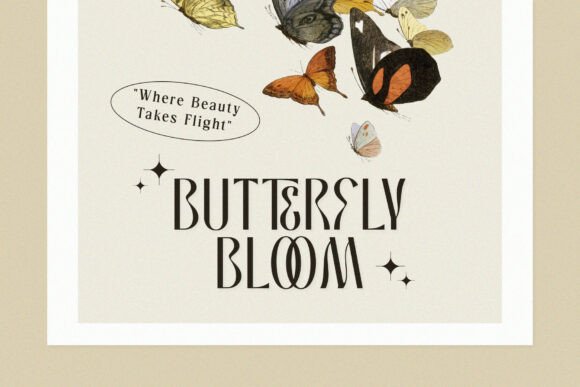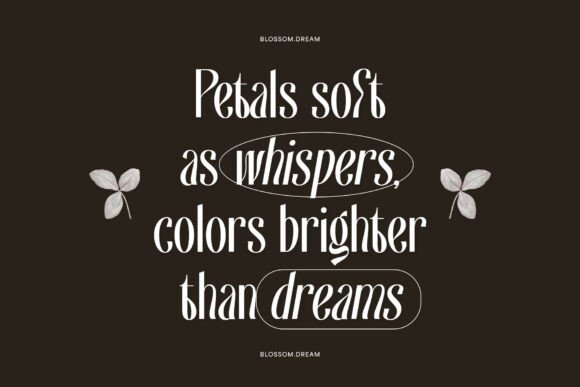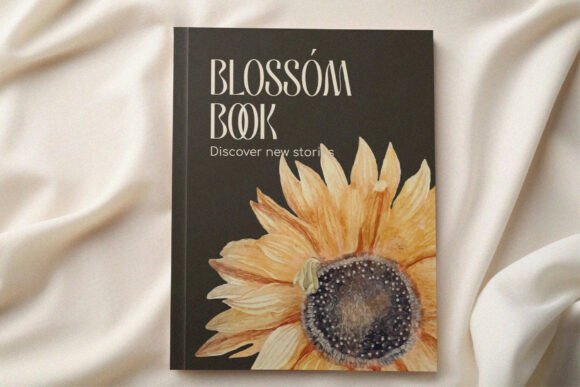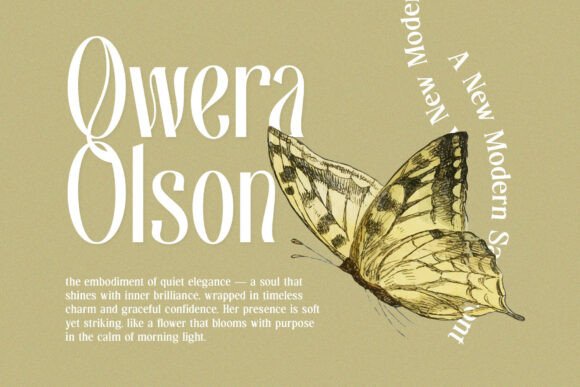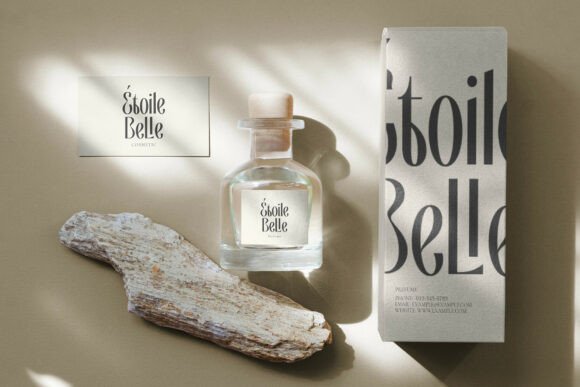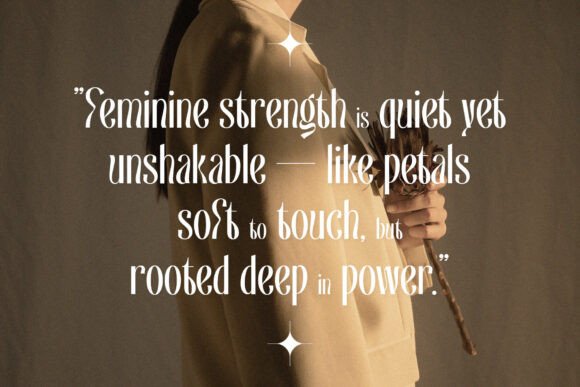
Redefining Luxury with the Perfect Font
Have you ever stared at a blank page, searching for the perfect font to convey your brand’s essence? It’s that moment when creativity strikes, and the possibilities seem endless. For designers, finding the ideal font can be a daunting task, but what if you stumbled upon one that effortlessly exudes luxury and sophistication?
Enter the Brylliant Font, a modern sans-serif that reimagines classic elegance through a contemporary lens. This versatile font is designed to elevate any layout, from high-fashion branding to boutique product packaging, with its high-contrast strokes and fluid, organic terminals. Its unique “swelled” stems and lyrical rhythm provide a sophisticated, boutique-style presence that’s sure to leave a lasting impression.
For designers seeking to add a touch of luxury to their designs, the Brylliant Font is an invaluable asset. Its professional, high-fashion feel makes it perfect for creating memorable brand identities and editorial designs that truly stand out.
Brylliant Font Key Features
- Font Family: Brylliant Font offers 4 unique font families, each with a distinct style and flair.
- Size: The font family includes a range of weights from Light to Bold, with 8 different font weights in total.
- Unique Characteristics: The font features a unique blend of geometric and organic elements, resulting in a visually striking and modern design.
Brylliant Font Review
Overall, I have mixed feelings about the Brylliant Font. There are some aspects where it truly shines ✨, but it also has some limitations that make it hard to recommend.
- ✨ Elegant and modern design: The Brylliant Font has a sleek and sophisticated look that makes it perfect for luxury brands and high-end designs.
- ✨ Versatile: It comes in multiple weights and styles, making it easy to use in various contexts, from headings to body text.
- ✨ Great for digital use: The font is optimized for screens, ensuring that it looks crisp and clear on both desktop and mobile devices.
- ⚠️ Limited character set: The font only includes the Latin alphabet, making it less suitable for designs that require non-Latin characters.
- ⚠️ Not ideal for small text: The font’s elegance and sophistication can make it difficult to read at small font sizes.
Overall, the Brylliant Font is a solid choice for designers who need a modern and sophisticated font for luxury brands or high-end designs. However, its limitations should be carefully considered before making a final decision.
Use Brylliant Font in bold or italic styles to add emphasis to your text.
Combine Brylliant Font with other fonts to create a unique and eye-catching design.
Brylliant Font is suitable for various design projects, including:
– Logos and branding materials
– Business cards and resumes
– Social media graphics and advertisements
– Presentations and reports